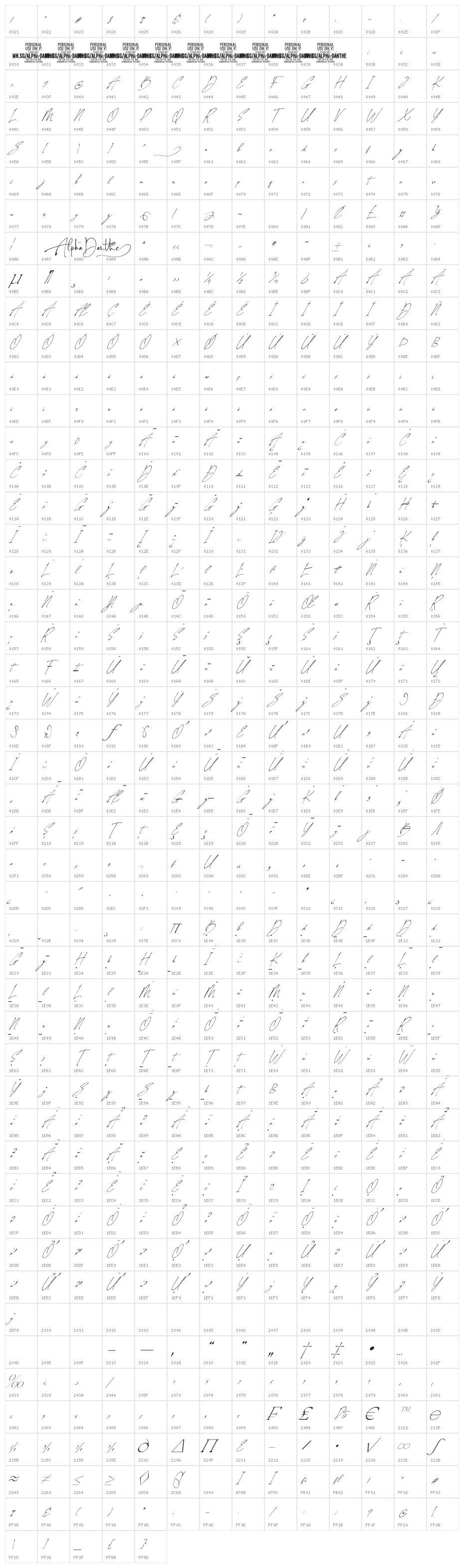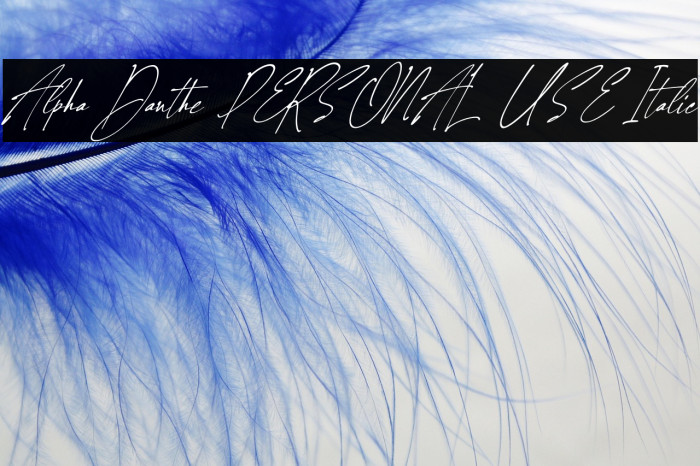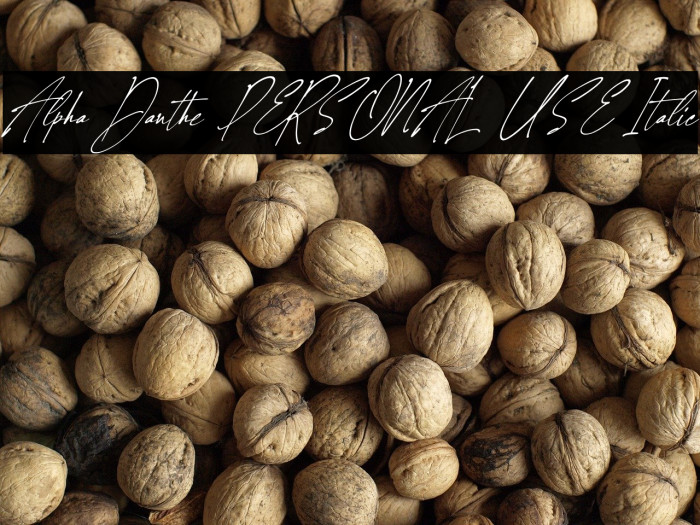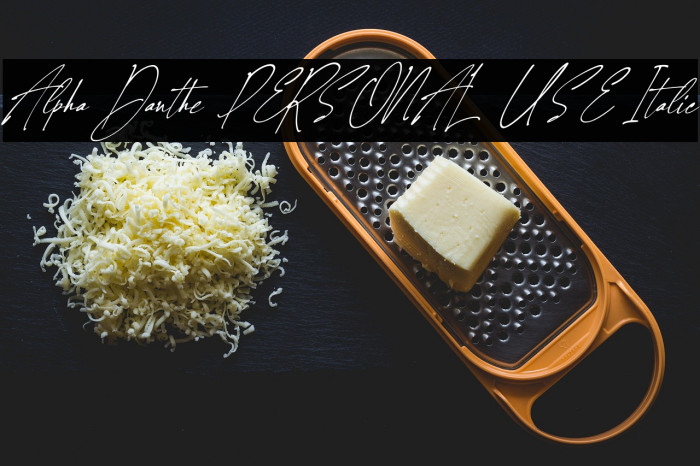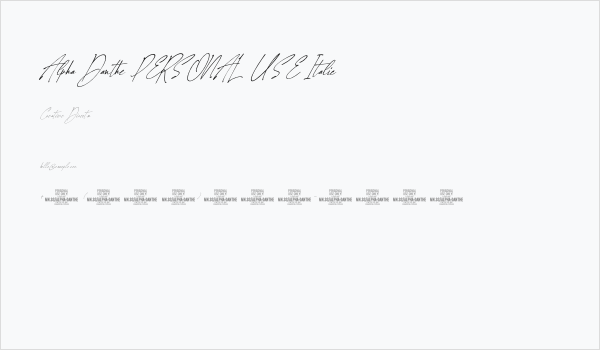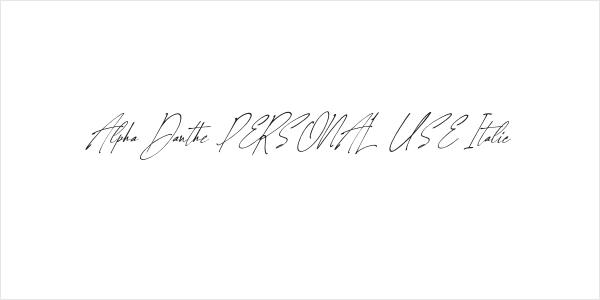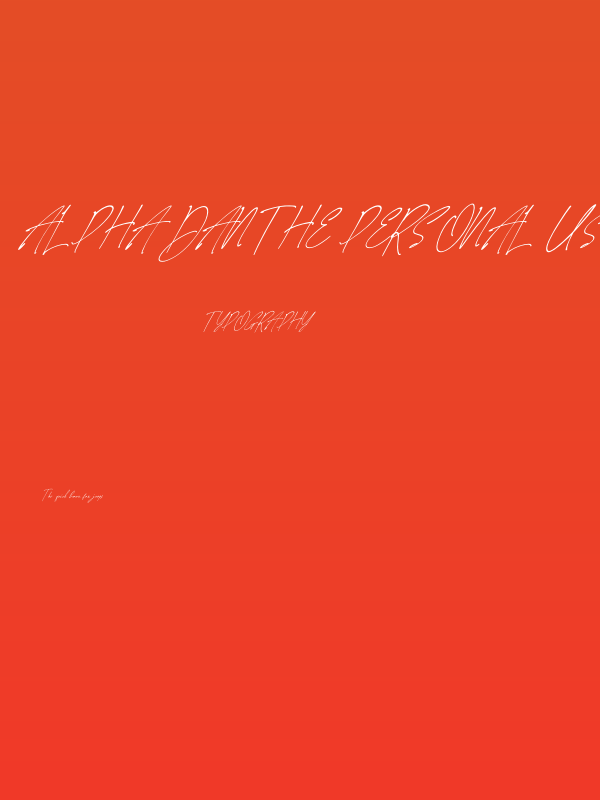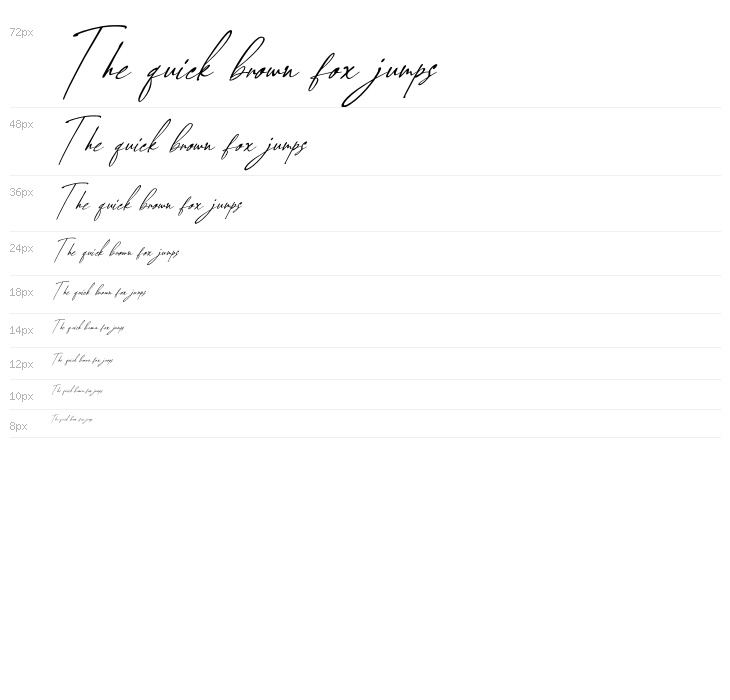
Alpha Danthe PERSONAL USE Italic Font
Alpha Danthe PERSONAL USE Italic Description
This elegant script font features a flowing, cursive style with a modern touch. The letters are connected with smooth, sweeping strokes, giving it a graceful and sophisticated appearance. The uppercase letters are tall and slightly slanted, while the lowercase letters maintain a consistent flow, enhancing readability. The font includes a full set of characters, including numbers and special symbols, all designed with a cohesive aesthetic. The thin lines and delicate curves make it ideal for projects that require a touch of elegance and refinement.